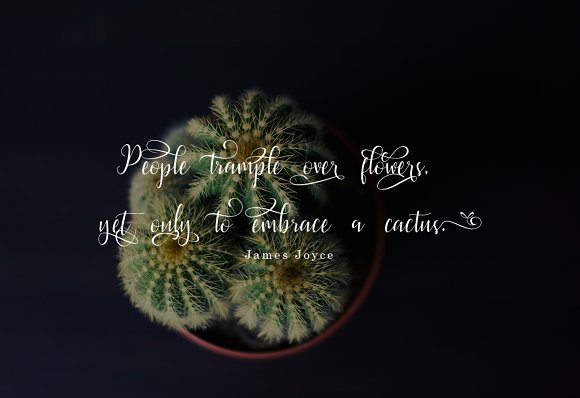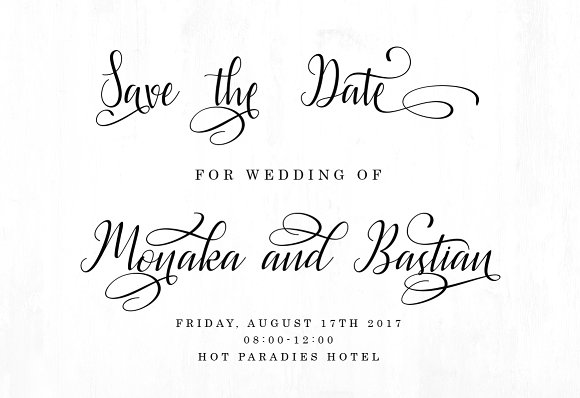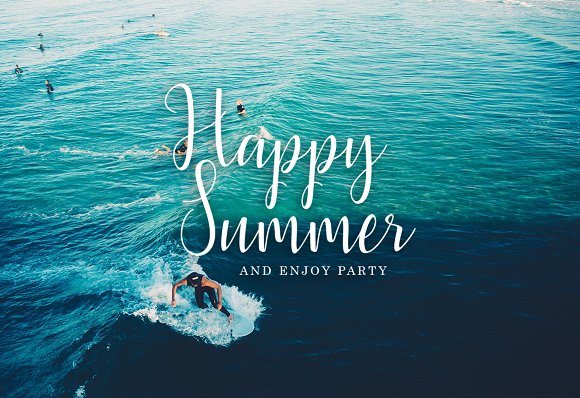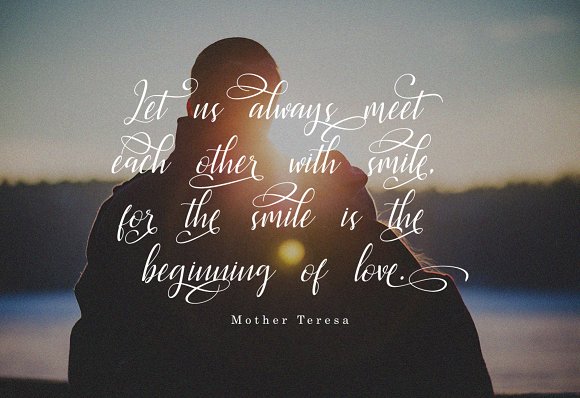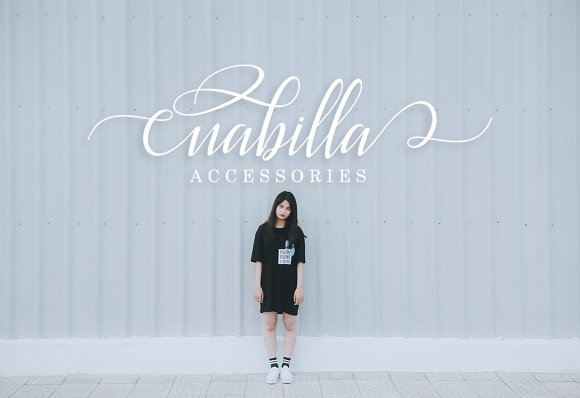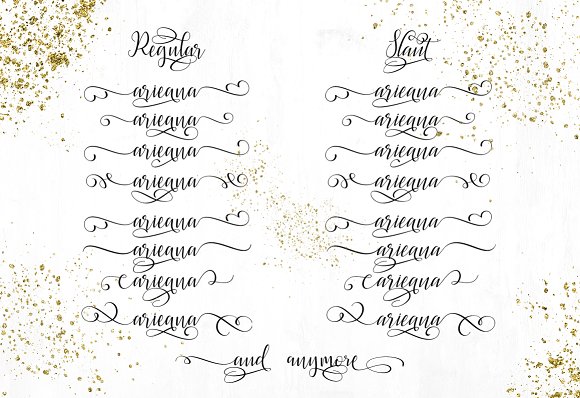
Introduction to Latasha Font
Latasha is a super-extensive script family stuffed with stunning alternates.
| 👤 Author | PointLab |
The family comes in 6 different weights and versions and is packed with 2245 unique glyphs .
Key Features of Latasha Font
Why Choose Latasha Font?